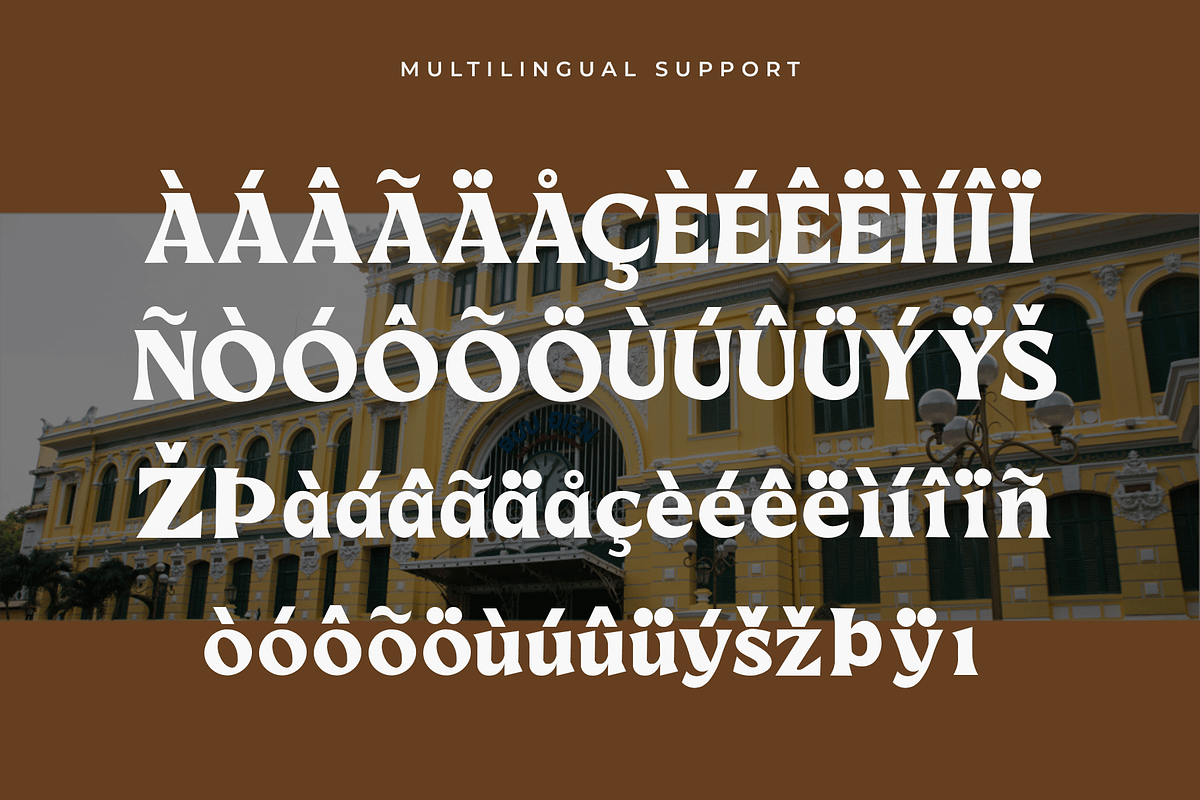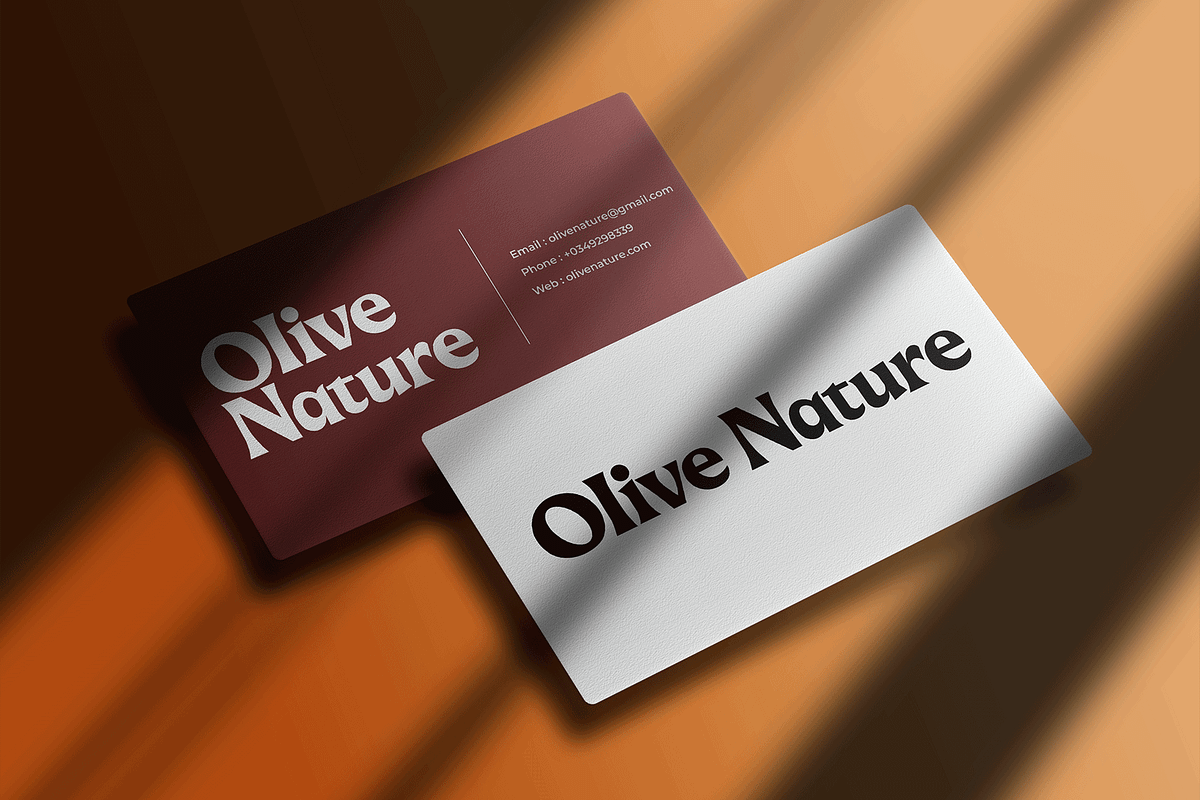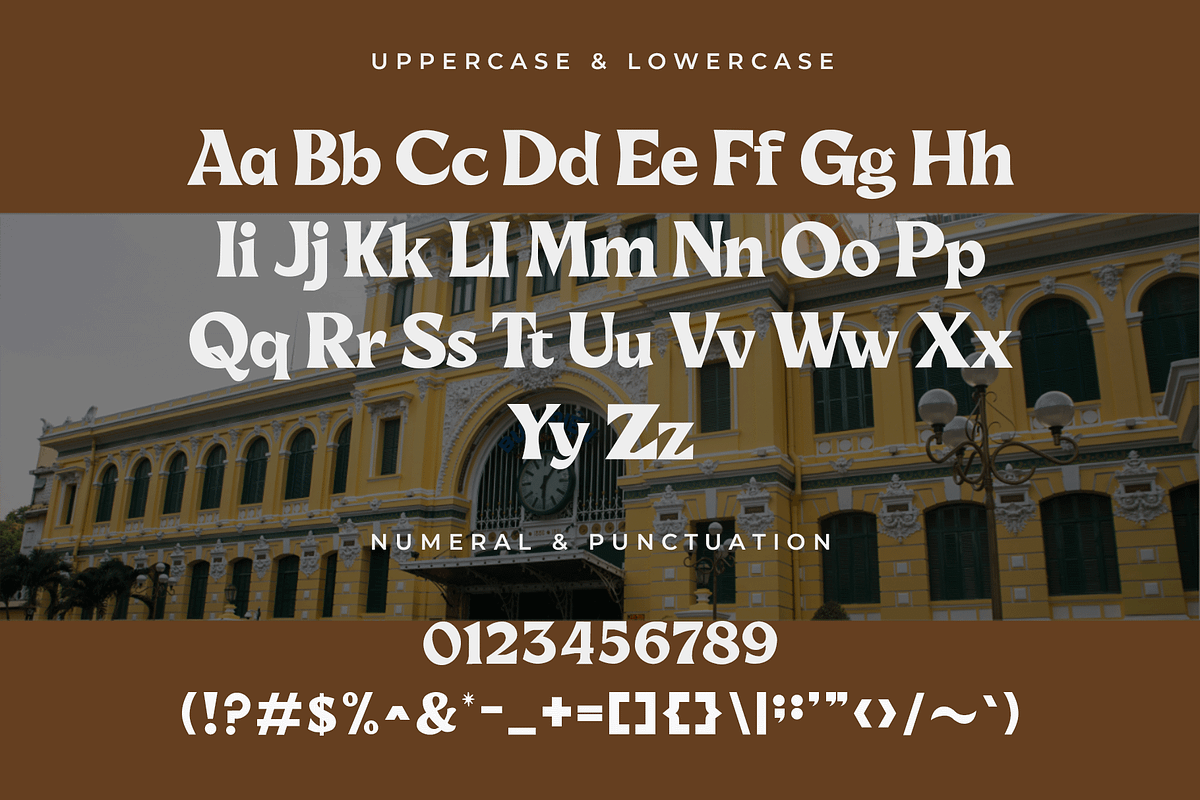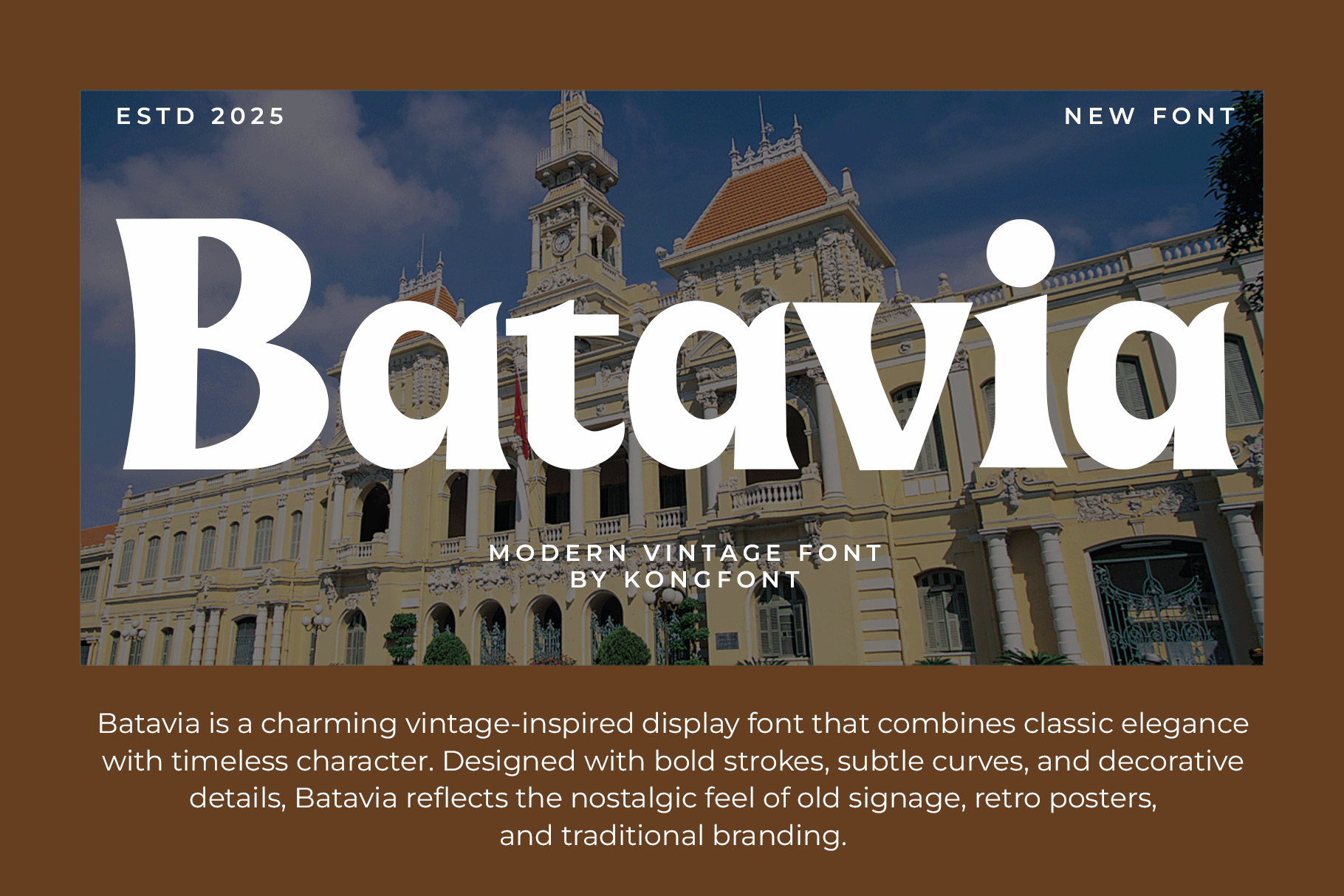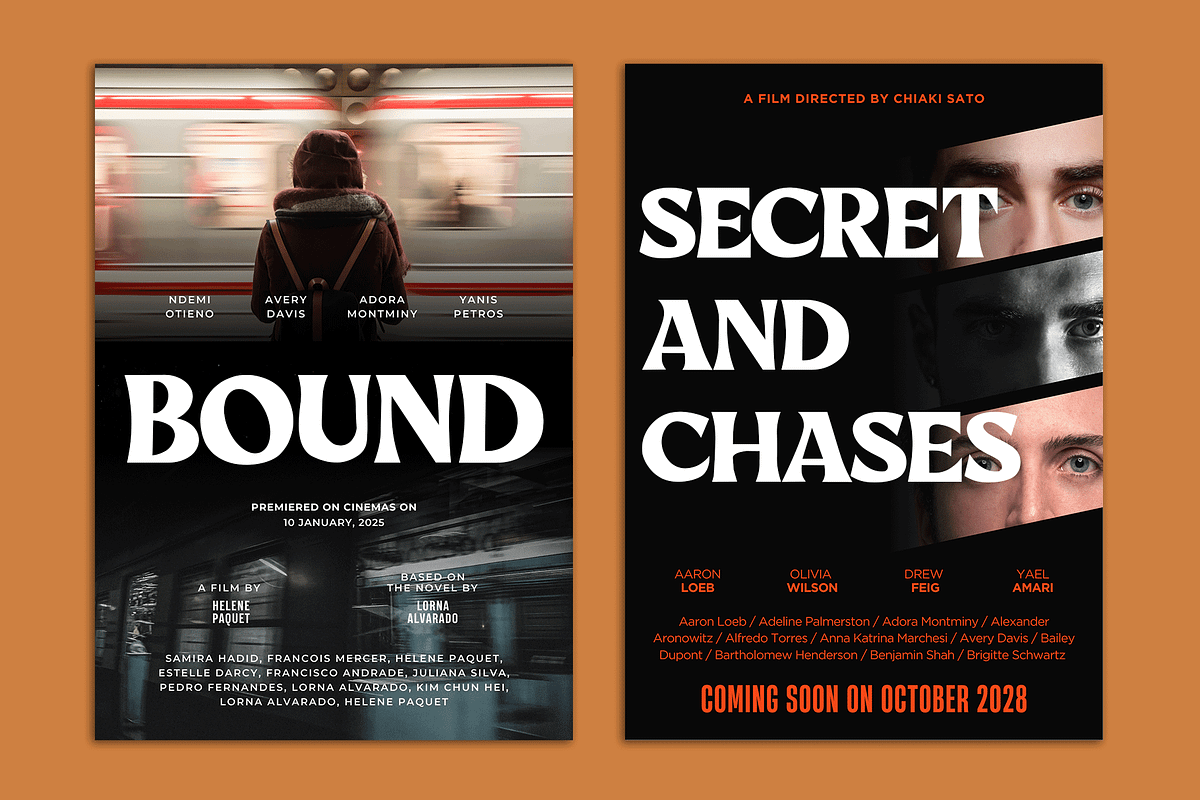
Batavia – Modern Vintage Font
Introducing Batavia, a modern vintage font that seamlessly blends nostalgic charm with a fresh, contemporary feel. Inspired by timeless retro typography yet refined for today’s design needs, Batavia brings a perfect balance of classic curves and modern precision.
This versatile font is ideal for branding, packaging, posters, logos, and editorial projects that need a touch of vintage sophistication. Its stylish letterforms capture the warmth of retro aesthetics while maintaining clean readability for modern use.
Batavia comes complete with uppercase, lowercase, numerals, punctuation, and multilingual support, making it adaptable for both global and professional creative projects. Whether you’re crafting bold headlines or elegant branding, Batavia ensures your designs stand out with a timeless appeal.